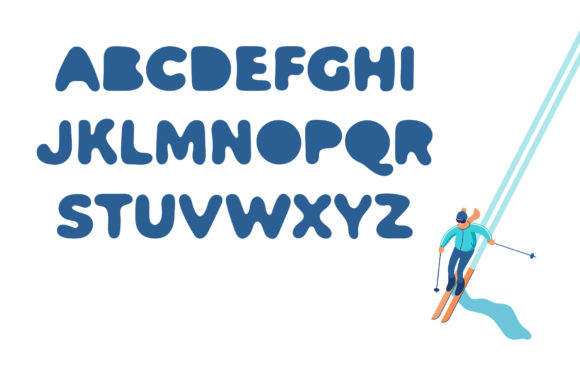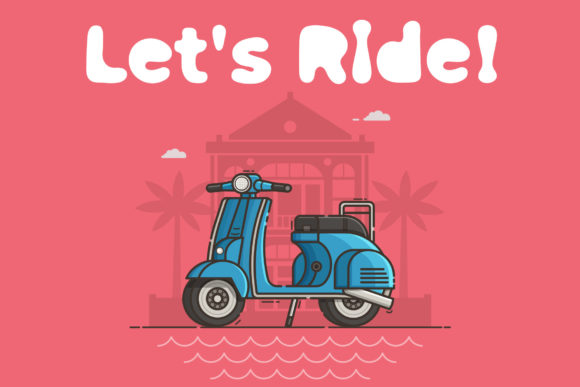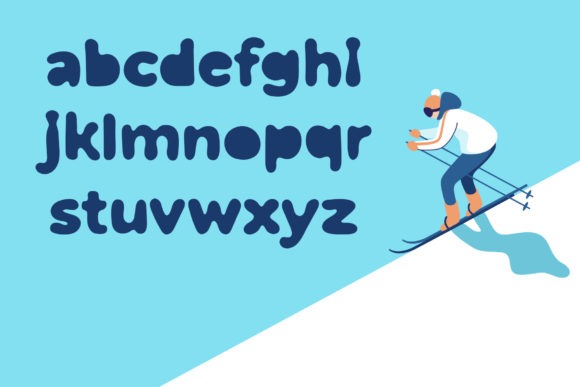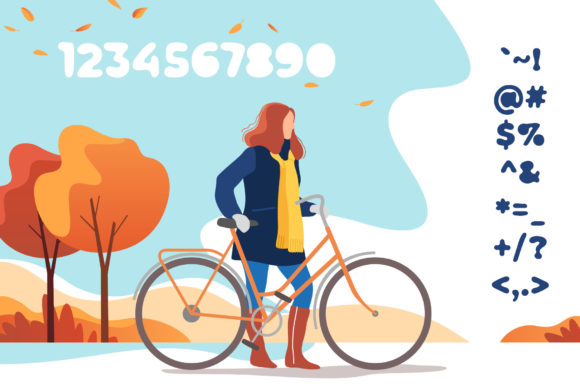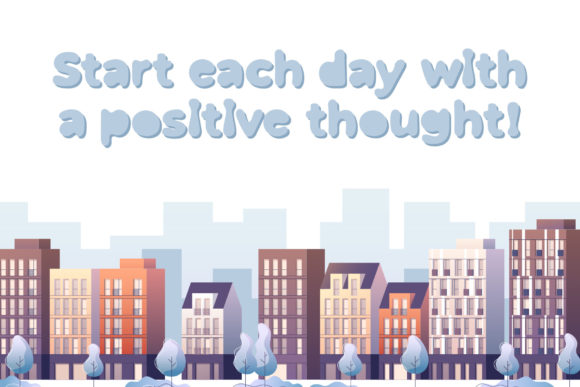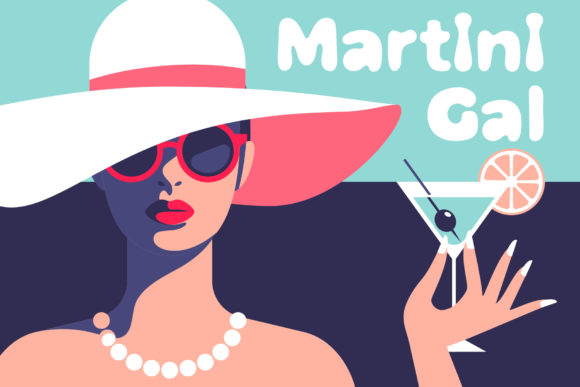
Introduction to Funzi Font
Have you ever been working on a creative project, pouring your heart and soul into it, only to realize that something’s missing – that perfect finishing touch? For many designers, this moment of realization can be frustrating, but it’s also an opportunity to discover a new design resource that elevates their work to the next level.
Meet the Funzi Font, a cool, fun, and friendly display font that’s about to become your go-to asset for any creative project. With its high quality and versatility, this font has the potential to enhance any design, making it a valuable addition to your font library.
Key Features of Funzi Font
- High-quality, professional font design ideal for creative projects and design resources.
- Features a transparent background, making it easy to use in a range of design applications.
- Includes a range of font sizes and resolutions, from 72 dpi to 300 dpi, to suit different design needs.
- Designed to be highly customizable, allowing users to easily adjust font styles and sizes.
- Perfect for use in digital design, including web design, graphic design, and print design.
- Includes a comprehensive character set, including uppercase and lowercase letters, numbers, and punctuation.
Honest Review: Funzi Font
I recently had the chance to work with the Funzi Font for a creative project, and I must say it’s been a game-changer. As a designer, I’m always on the lookout for high-quality design resources that can elevate my work.
- ✨ High-quality design: The Funzi Font boasts crisp, clear letters that are perfect for any project.
- ✨ Versatile: With its transparent background, I was able to easily integrate it into my design without any hassle.
- ⚠️ Limited font styles: While the Funzi Font is great for general use, it’s not ideal for projects that require a wide range of font styles.
- ⚠️ Not suitable for small text: Due to its bold nature, the Funzi Font may not be the best choice for small text or body copy.
Overall, I’m impressed with the Funzi Font’s performance in my design project. It’s a solid choice for designers looking for a high-quality, versatile font that’s easy to use. With a bit of creativity, I was able to work around its limitations and achieve the desired look. I’d definitely recommend the Funzi Font to fellow designers looking for a reliable design resource.
Getting the Most Out of Funzi Font
To get the most out of the Funzi Font, use it in conjunction with other design elements to create visually appealing and effective designs.
The Funzi Font is ideal for use in logos, branding materials, and creative projects that require a high-quality, modern font with a transparent background.
Great Vibes Font is a modern script font that is perfect for designers who want to add a fun and playful touch to their creative project. It has a free download option, making it a great design resource for those on a budget. Great Vibes Font has a transparent background and is ideal for use in social media graphics, posters, and other design elements that require a carefree vibe. Compared to Funzi Font, Great Vibes Font has a more casual and laid-back look, making it suitable for informal events and relaxed designs.
Playfair Display Font is a luxurious serif font that is perfect for designers who want to add a touch of sophistication to their creative project. It has a high quality design and a transparent background, making it easy to use as a design resource. Playfair Display Font is ideal for use in high-end designs, such as luxury branding and advertising materials. Compared to Funzi Font, Playfair Display Font has a more formal and elegant look, making it suitable for formal events and high-end designs.
Yes, the Funzi Font has a transparent background, making it ideal for use in graphics and designs where a clear background is required. This feature also allows for easy layering and compositing in your design projects.